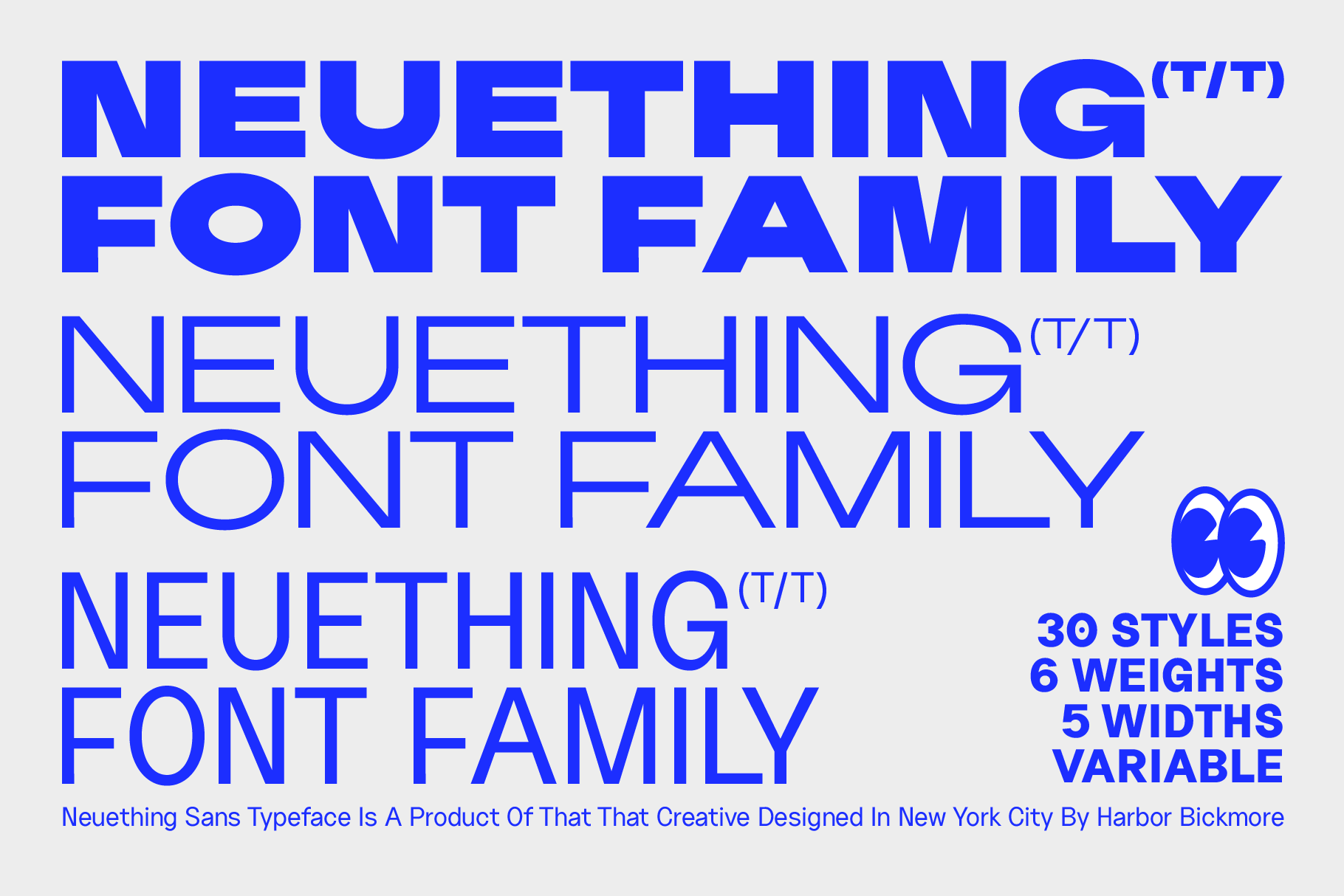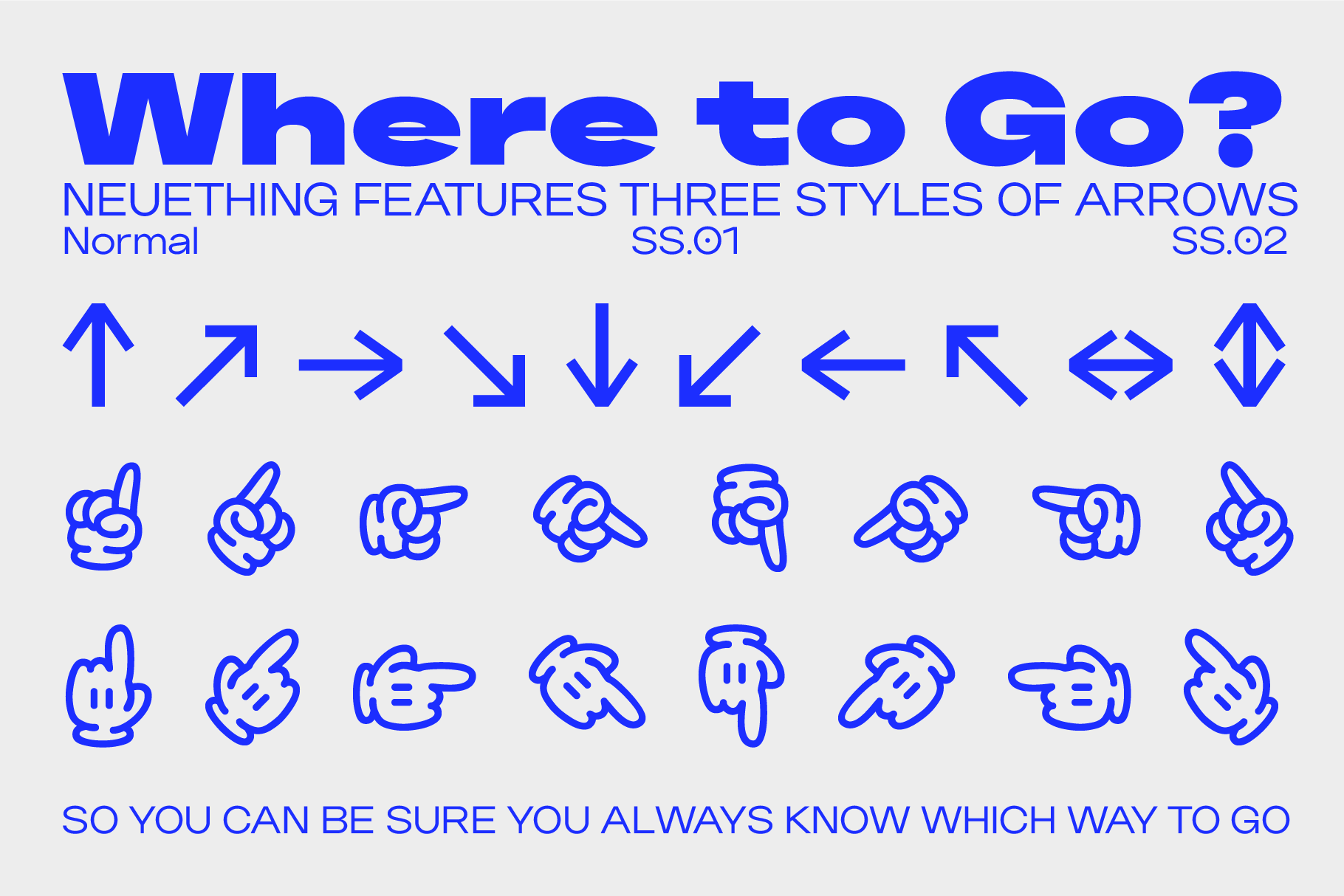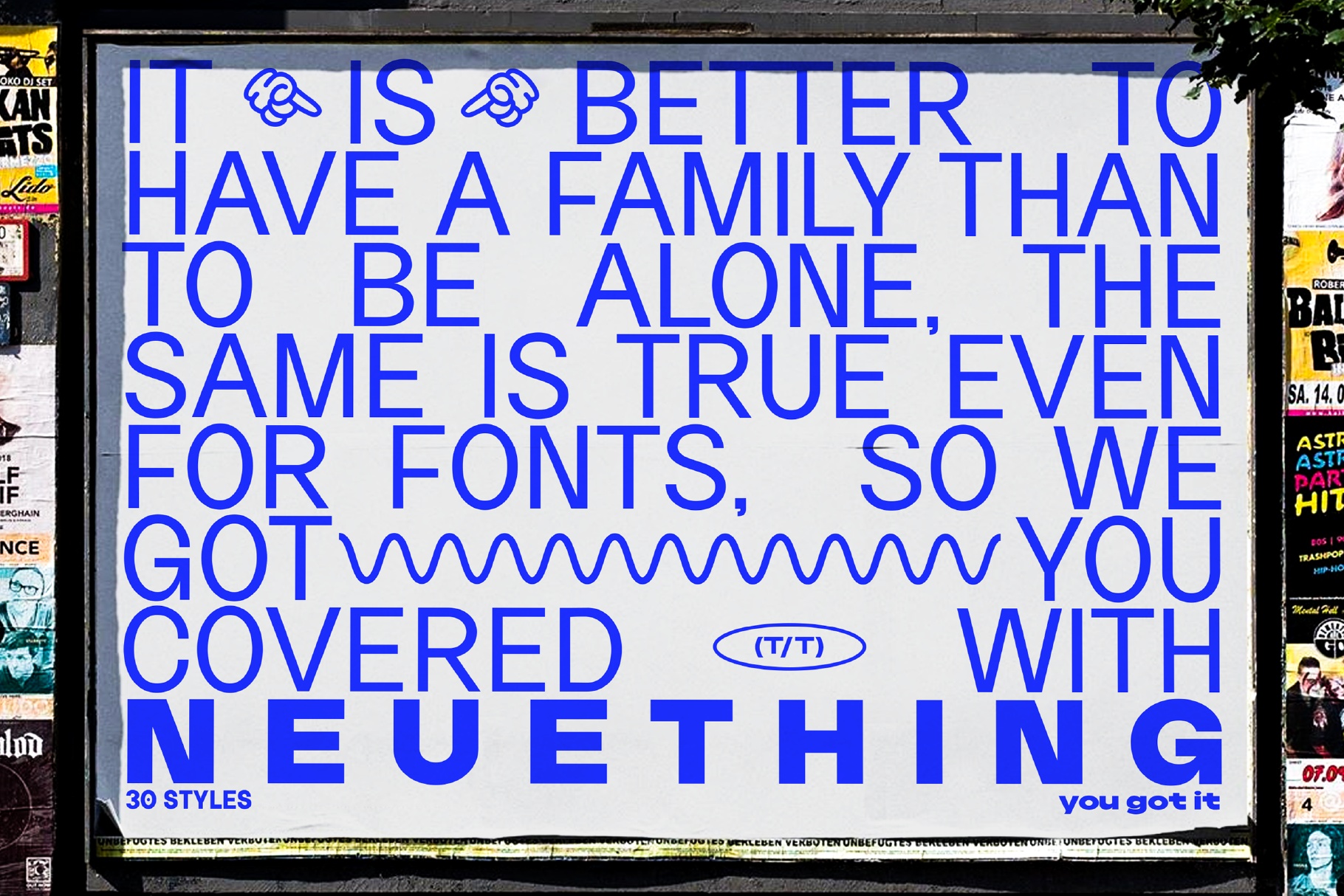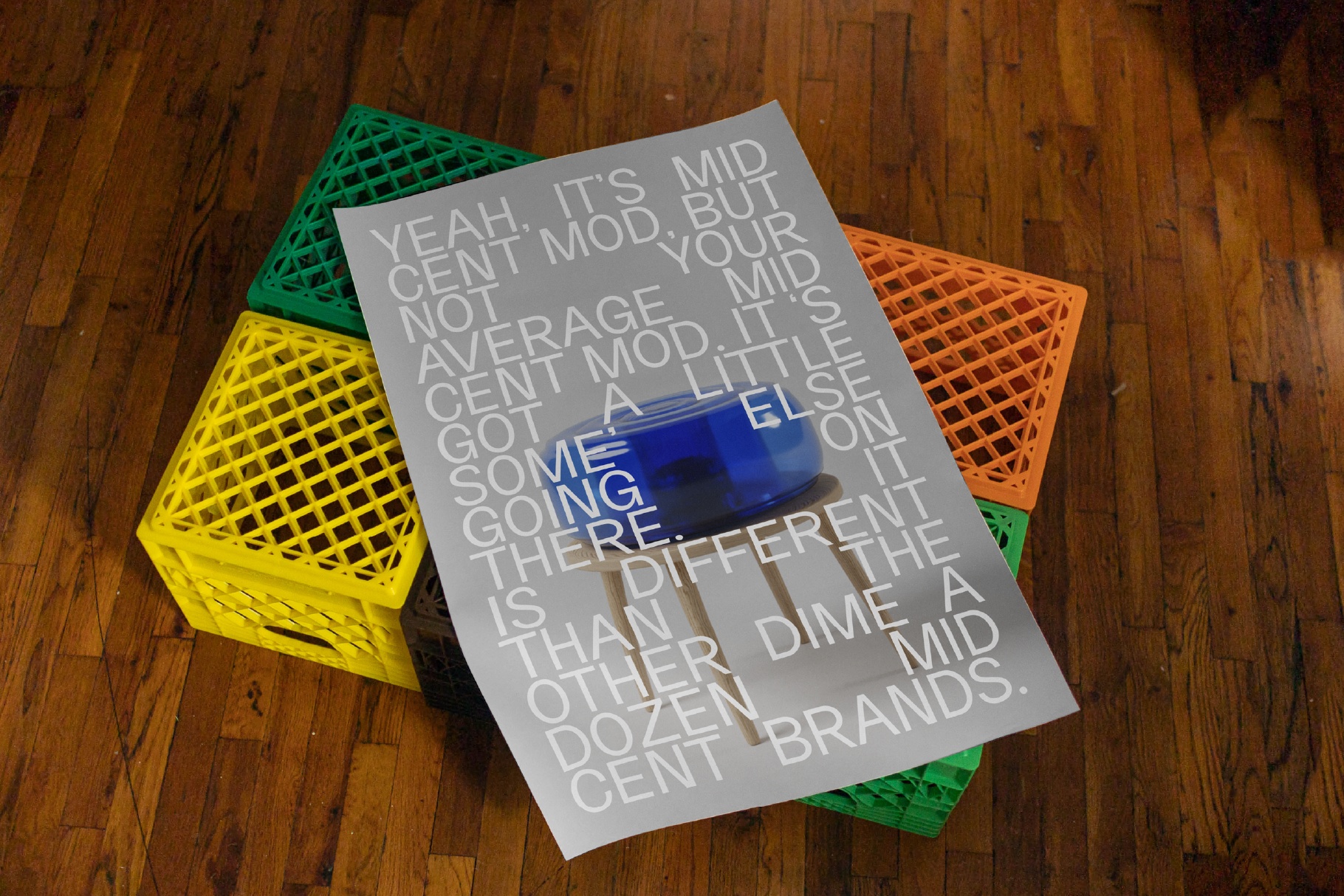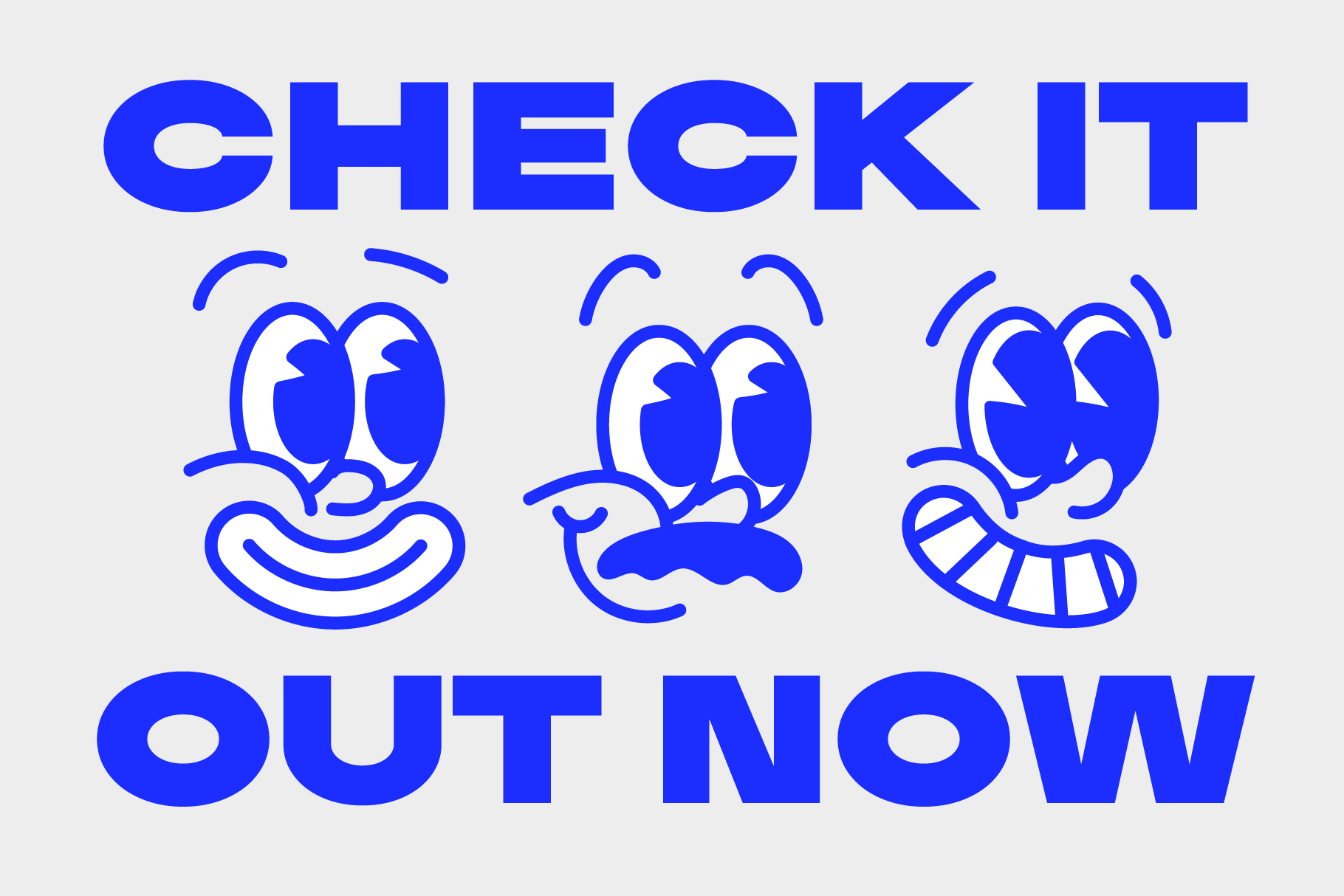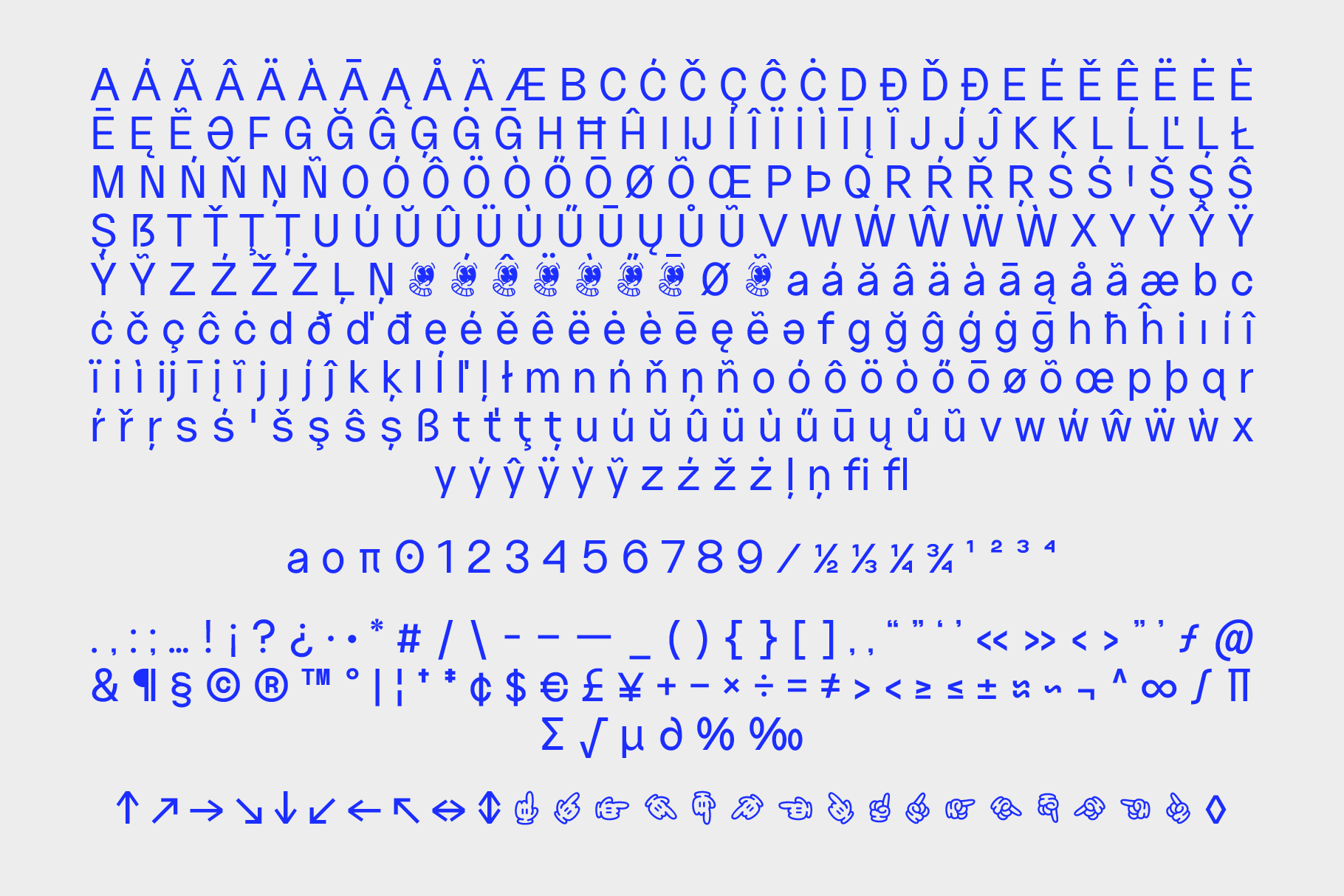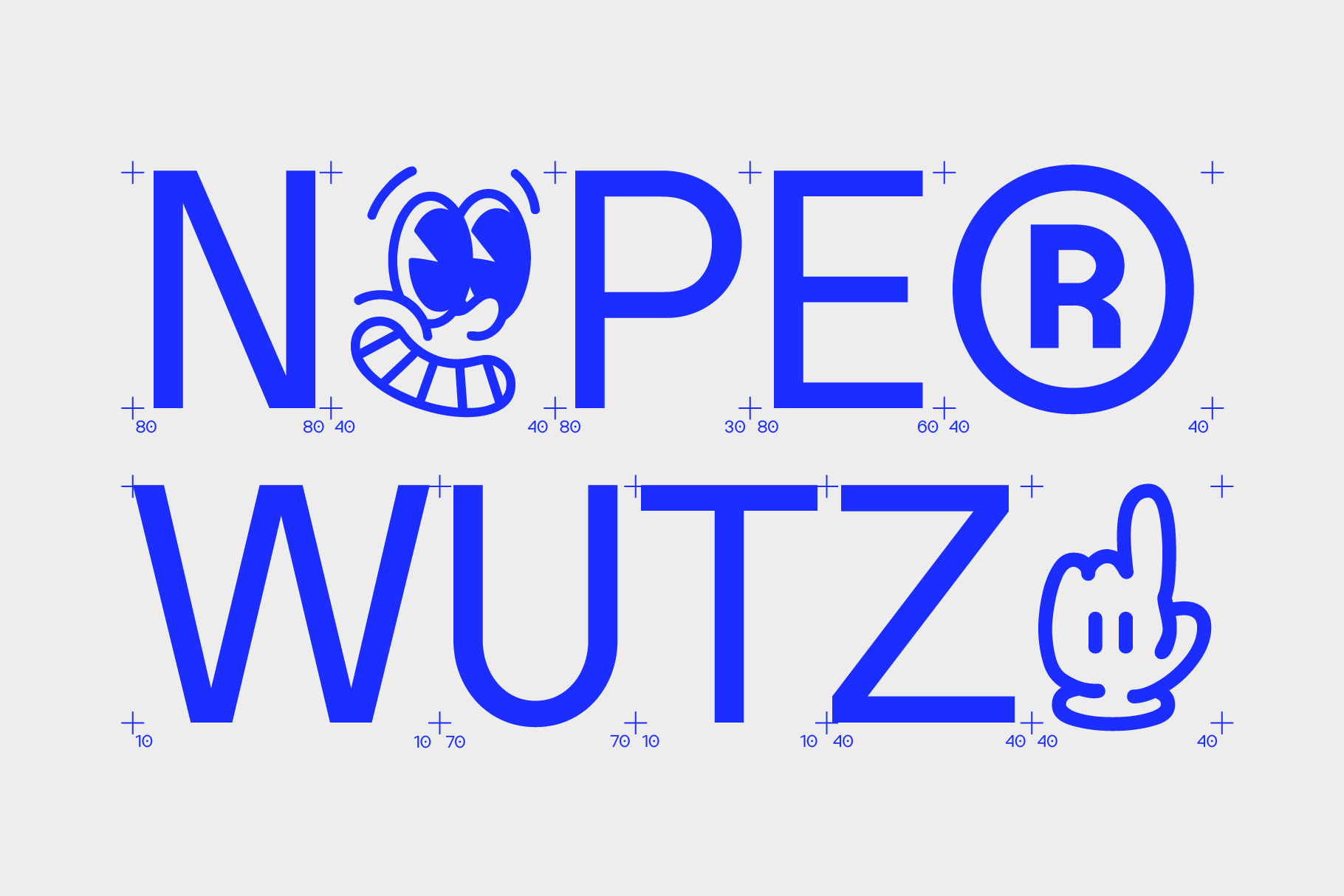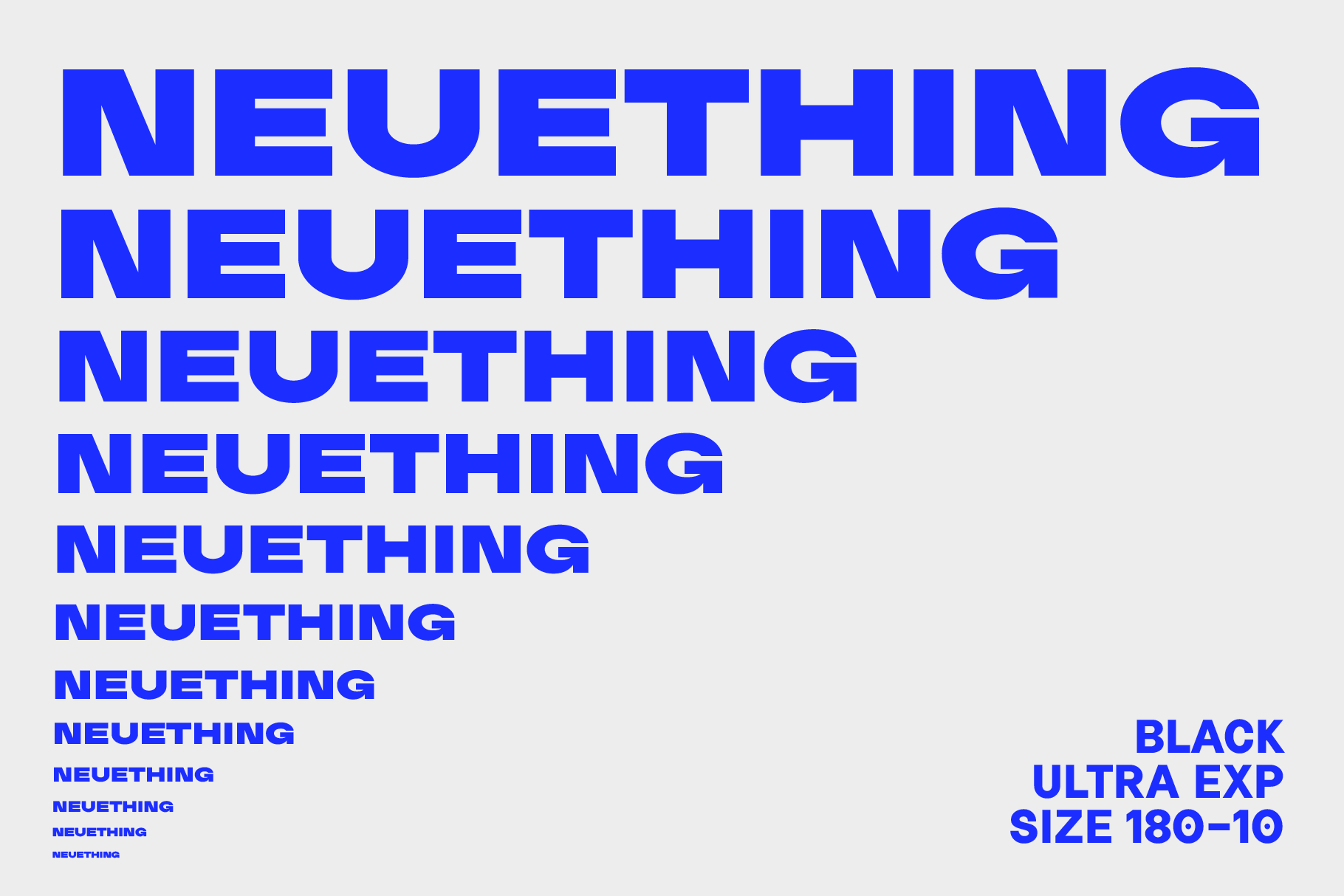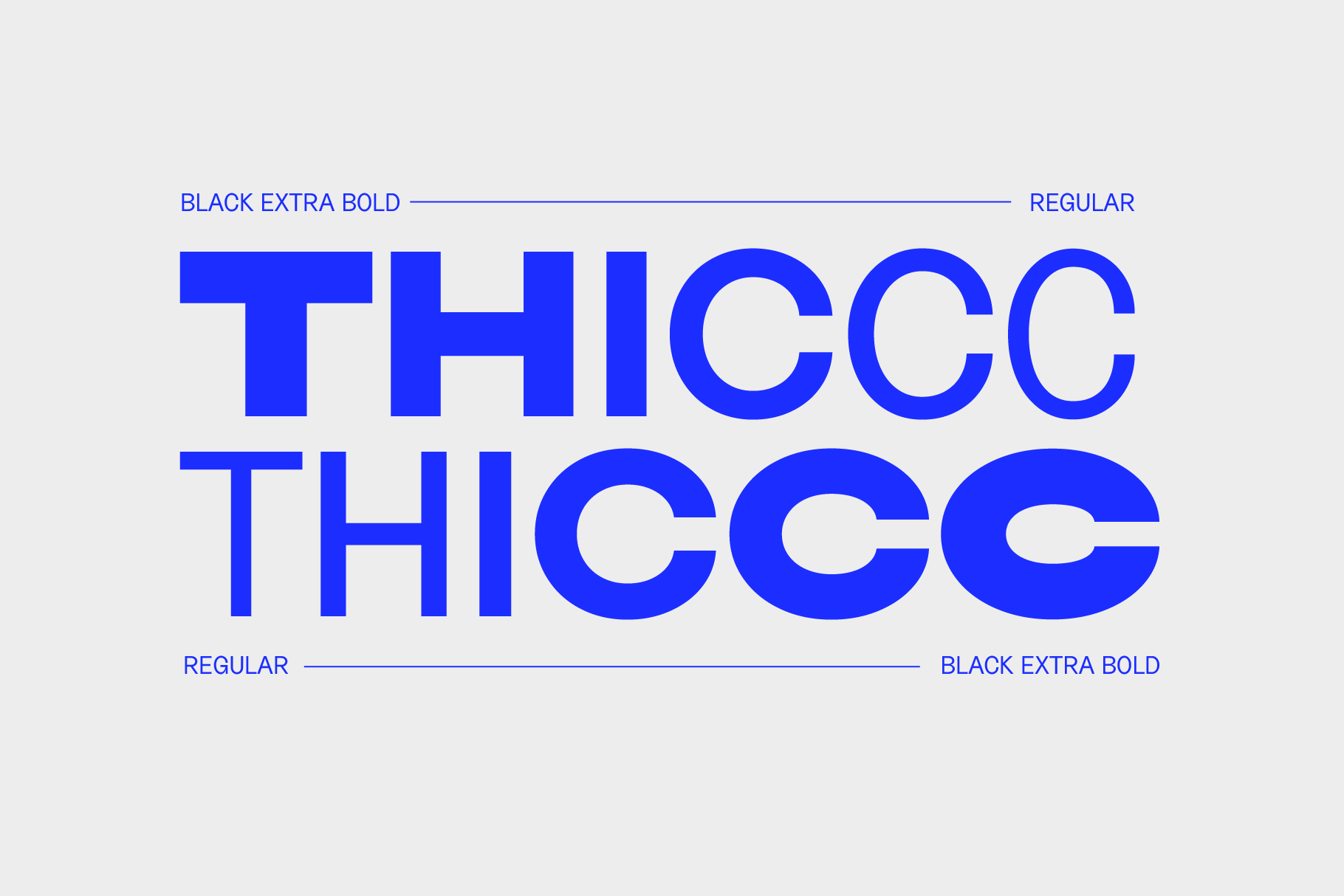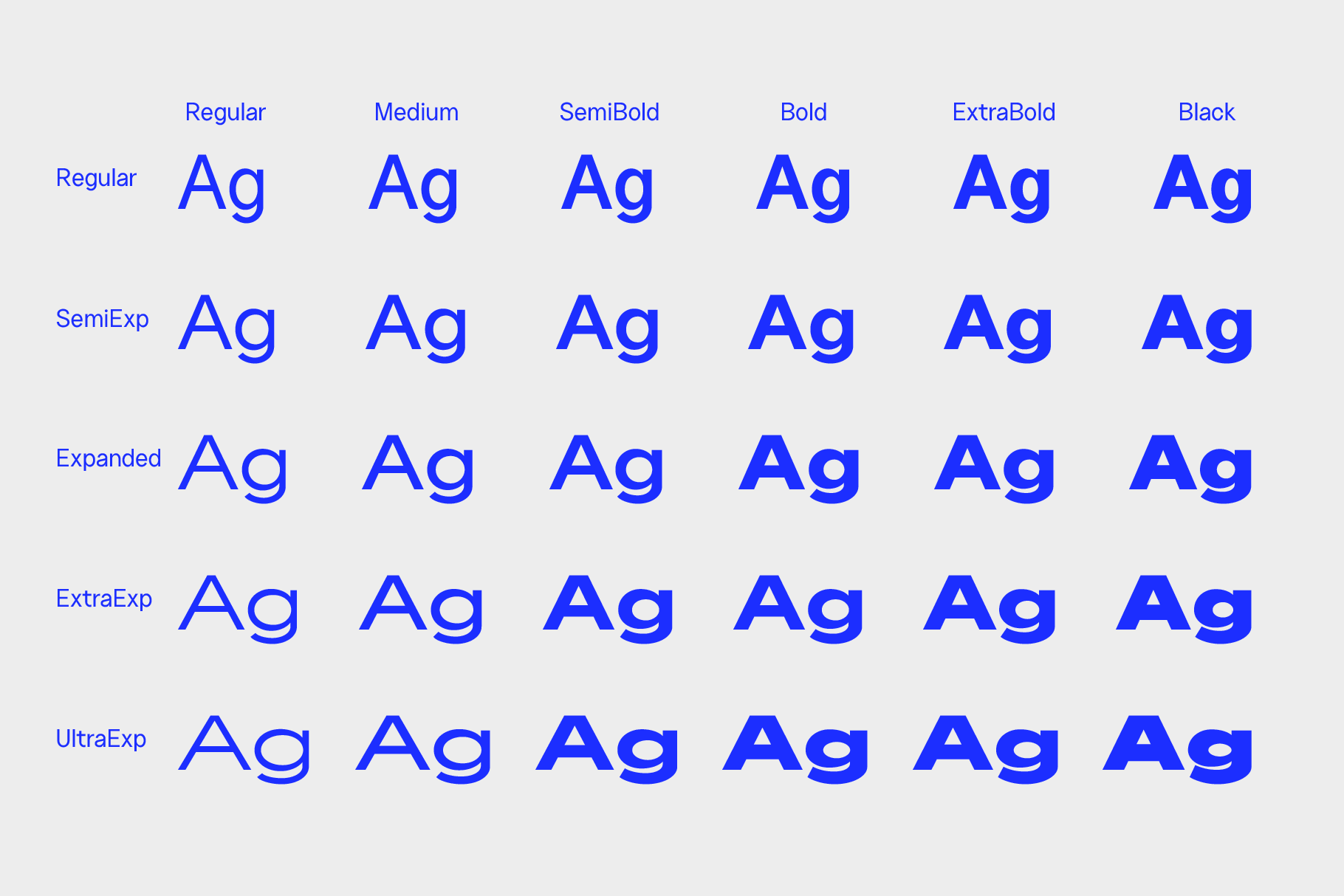
Neuething - Geometric Sans Font Family
Neuething is a geometric sans serif family built on flat-cut terminals and even, sign-painted proportions, with a retro construction that still reads clean at any size. Six weights cross five widths, from tight condensed to full expanded, so the same letterforms hold up as a poster headline or a paragraph of body copy.
Two stylistic sets swap the default arrows for hand-drawn pointing fists and playful cartoon eyes, giving the family a way to add character without leaving the typeface. Use it for branding lockups, editorial headlines, poster campaigns, magazine spreads, social graphics, packaging labels, signage systems, and long-form body copy.
- 30 styles: 6 weights across 5 widths, plus a variable font;
- uppercase & lowercase;
- numerals, punctuation & symbols;
- stylistic sets for arrows and hand icons, ligatures;